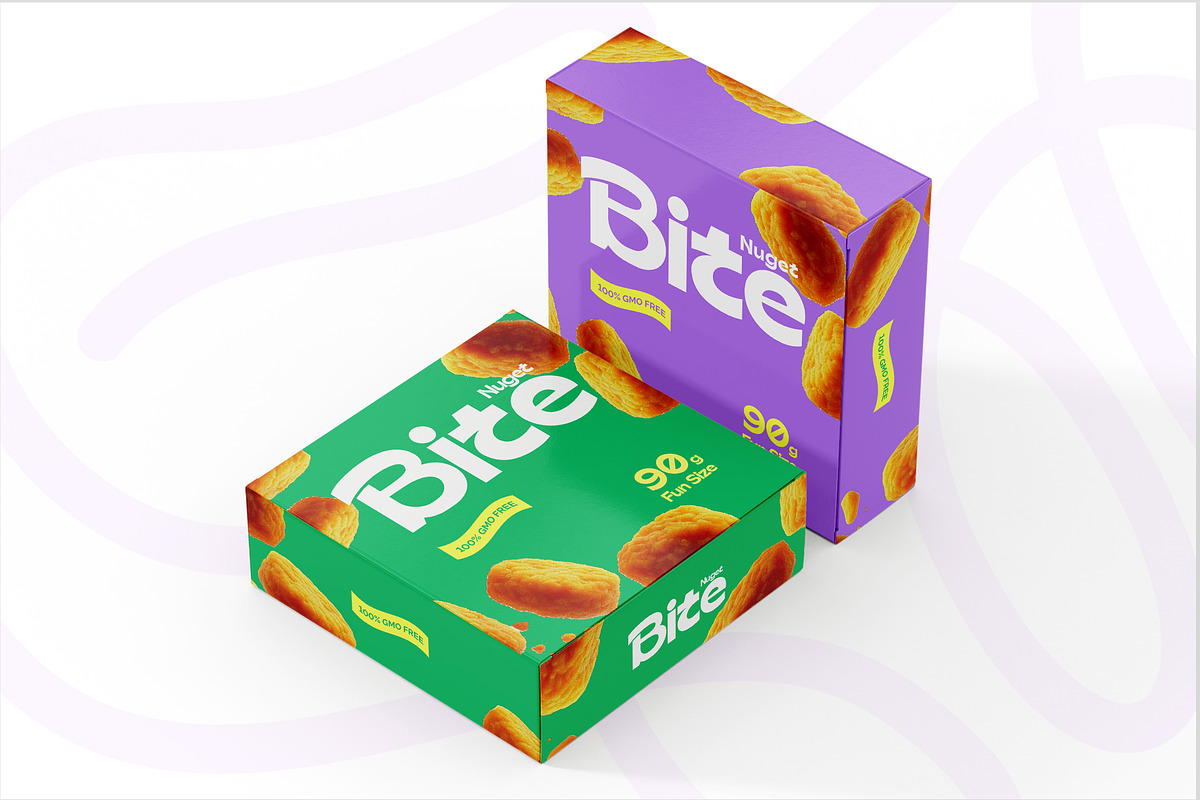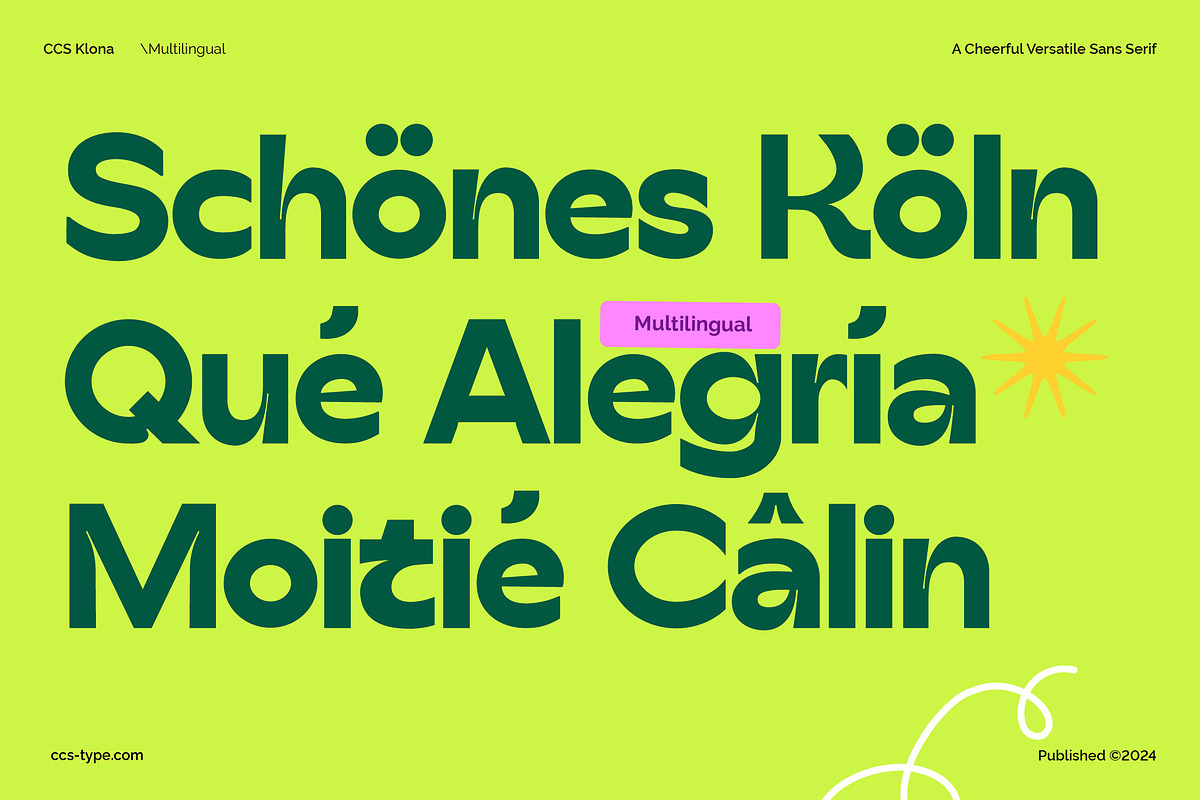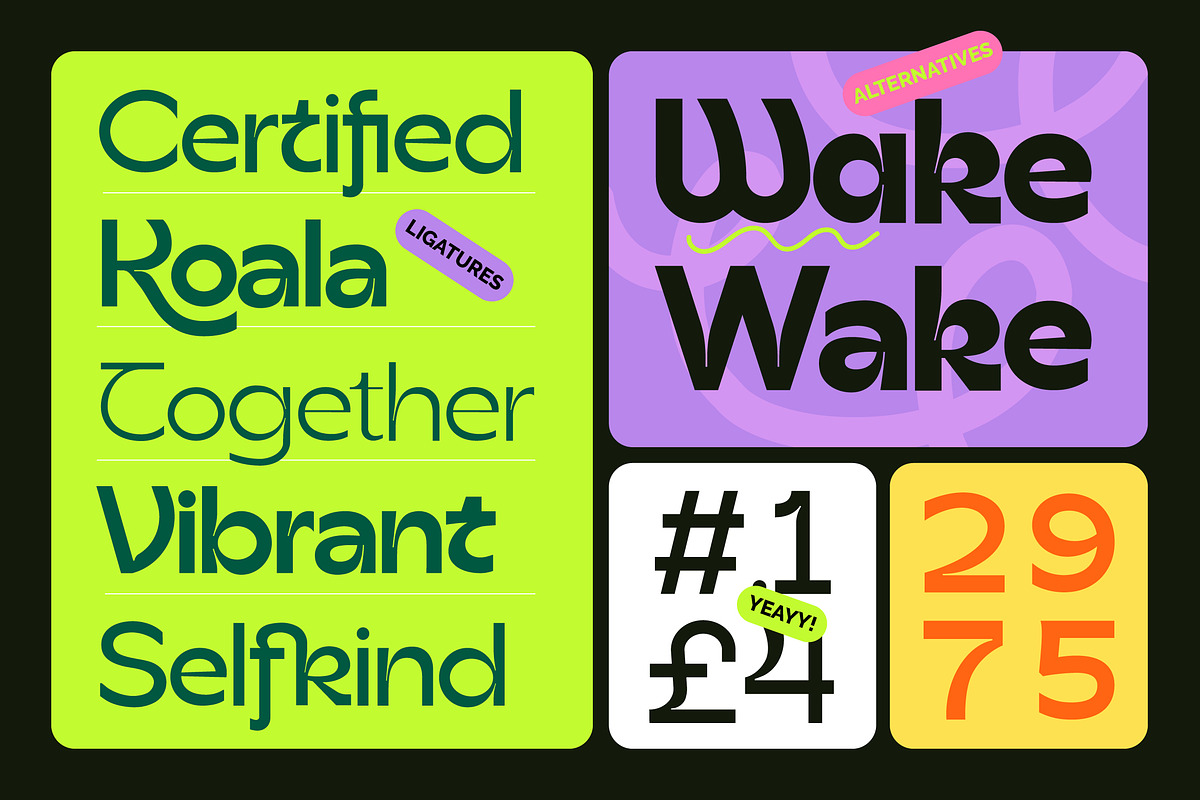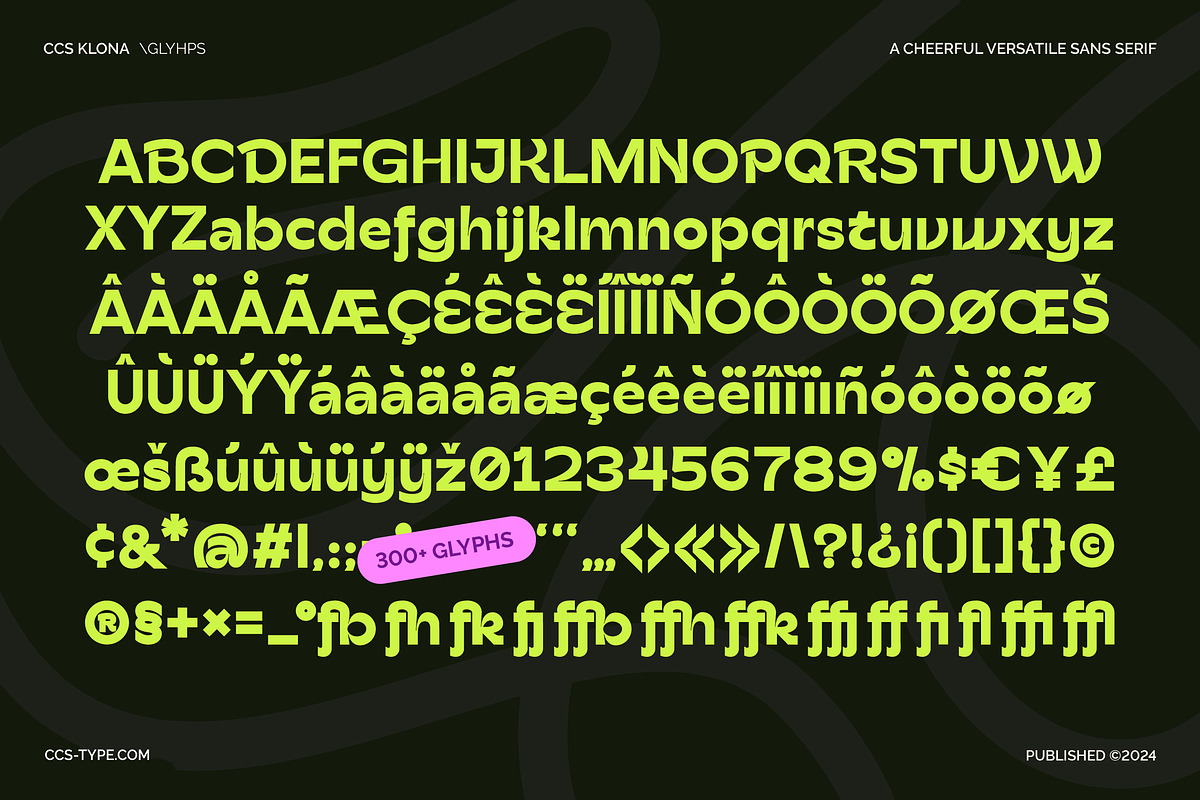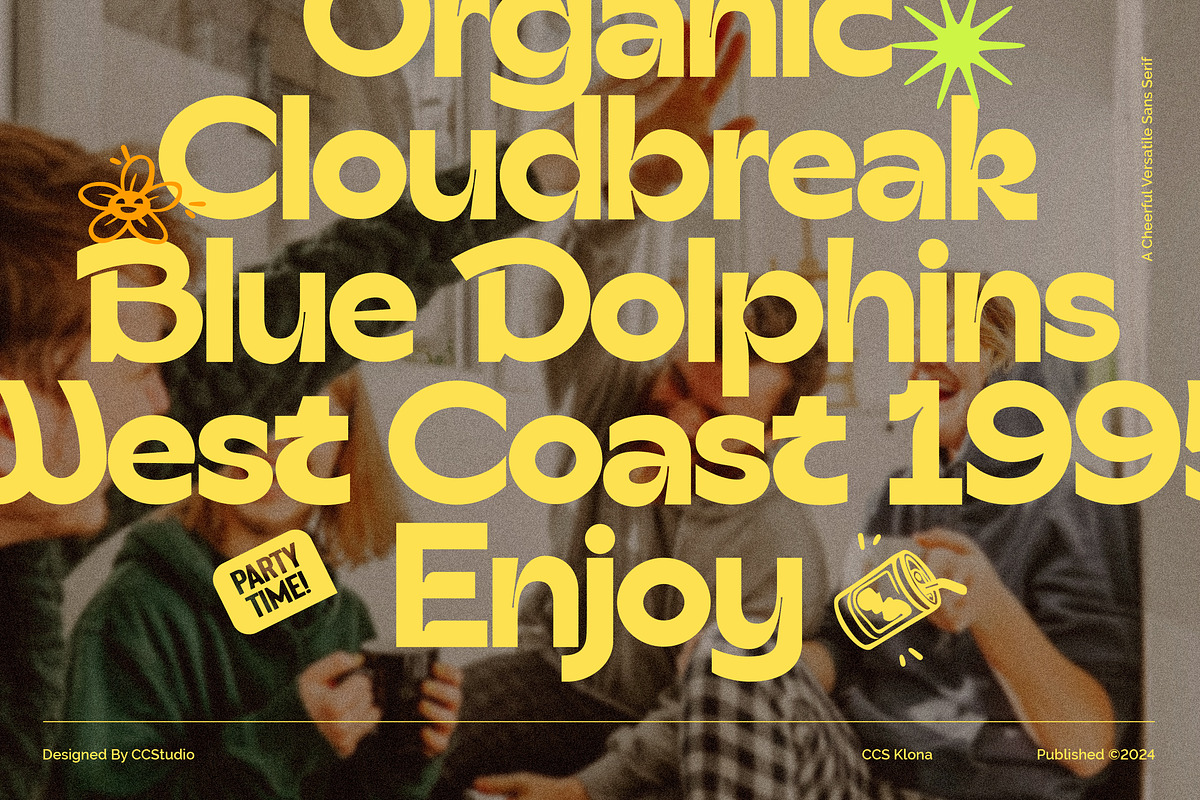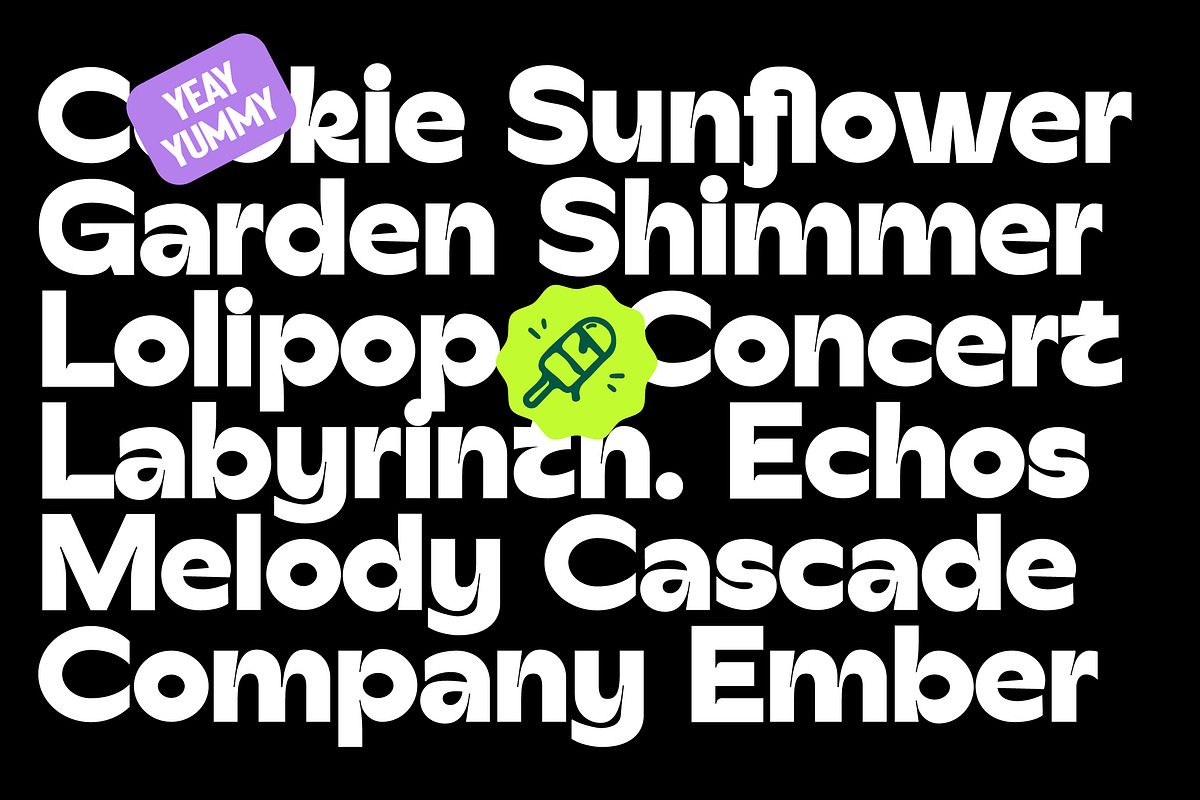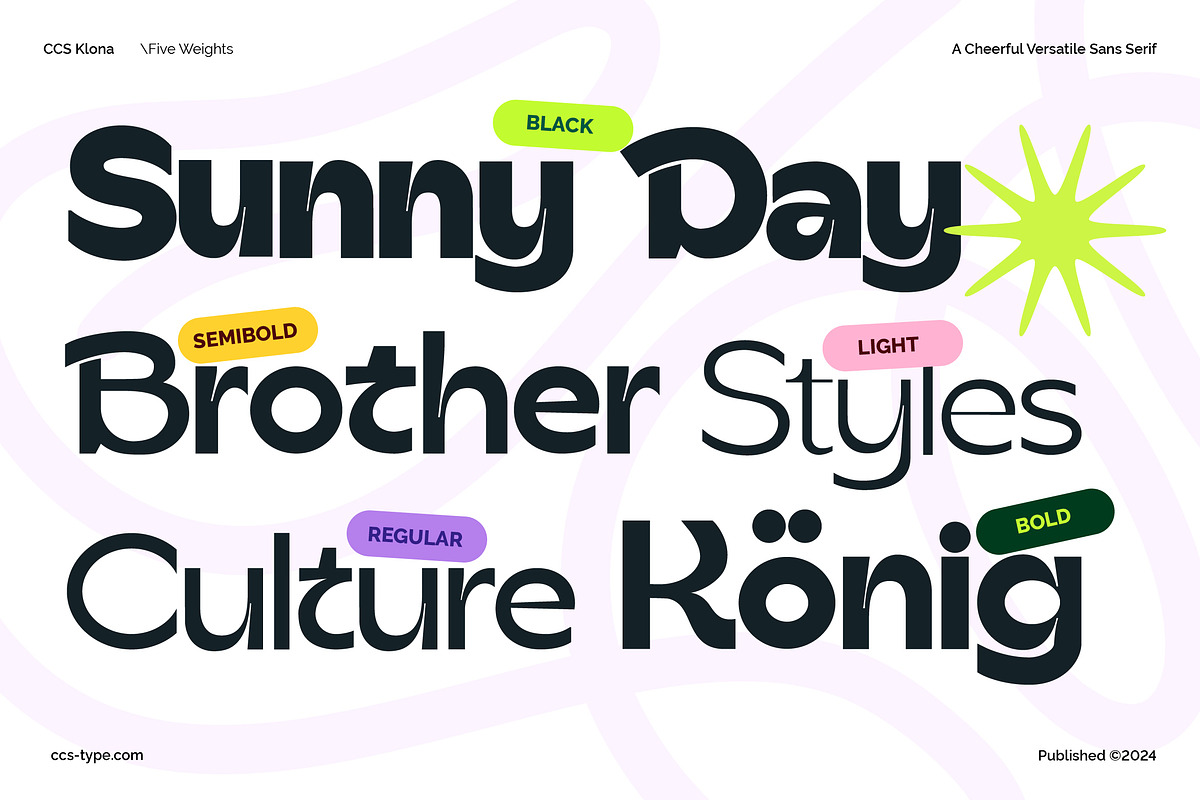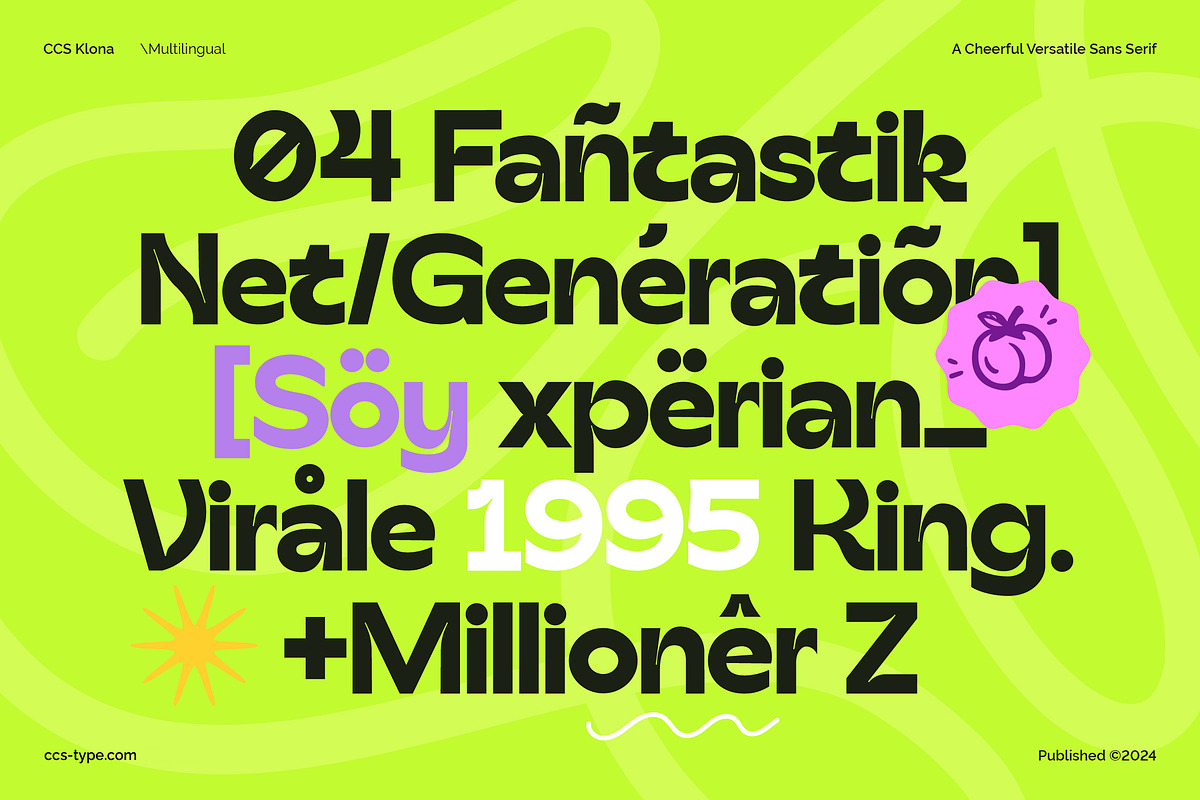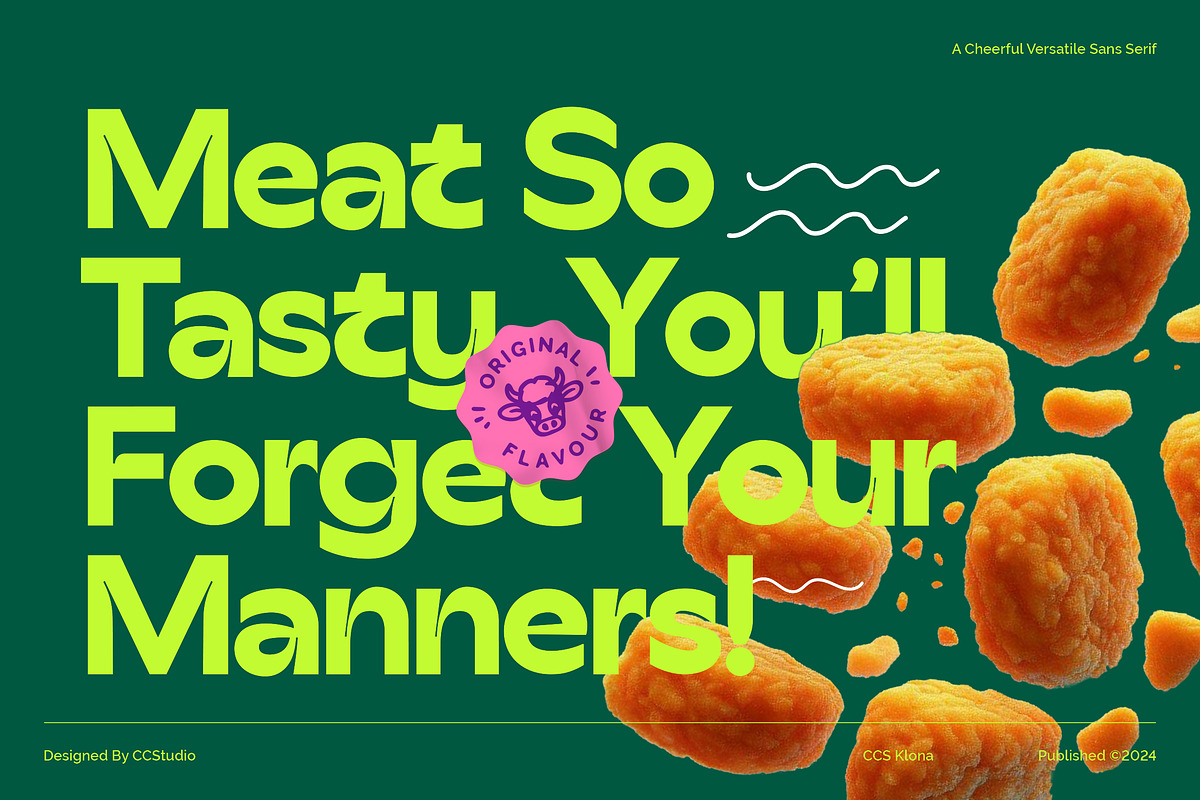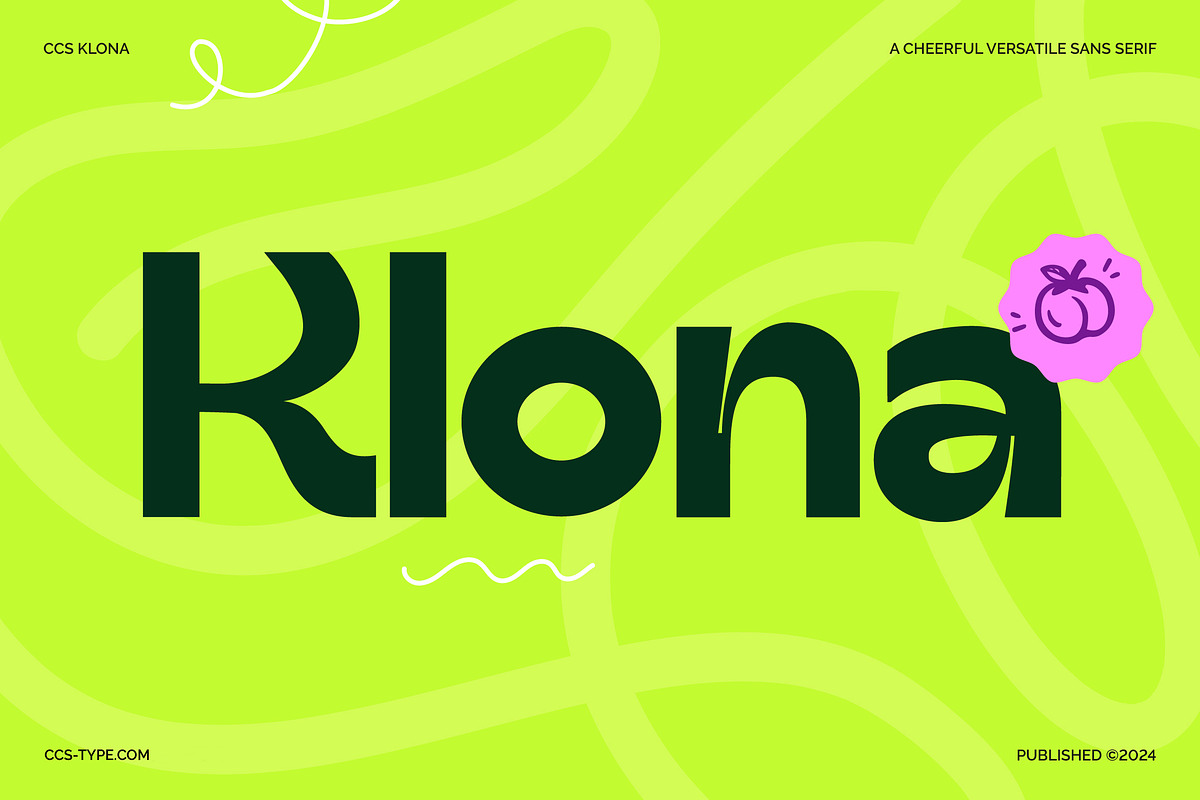
Klona Sans Serif
Introducing Klona, a fun versatile sans serif font that brings a touch of joy and friendliness to your designs. Its bold, extended style and cheerful personality make it ideal for branding, logos, and websites. With five weight variations and an extensive character set, including numerous ligatures, Klona offers unparalleled flexibility for customizing your projects. Whether you're looking to create bold, impactful headlines or subtle, nuanced body text, Klona has you covered. Download Klona today and add a touch of fun to your designs.
5 Weights font
Stylistic Alternates & Ligatures